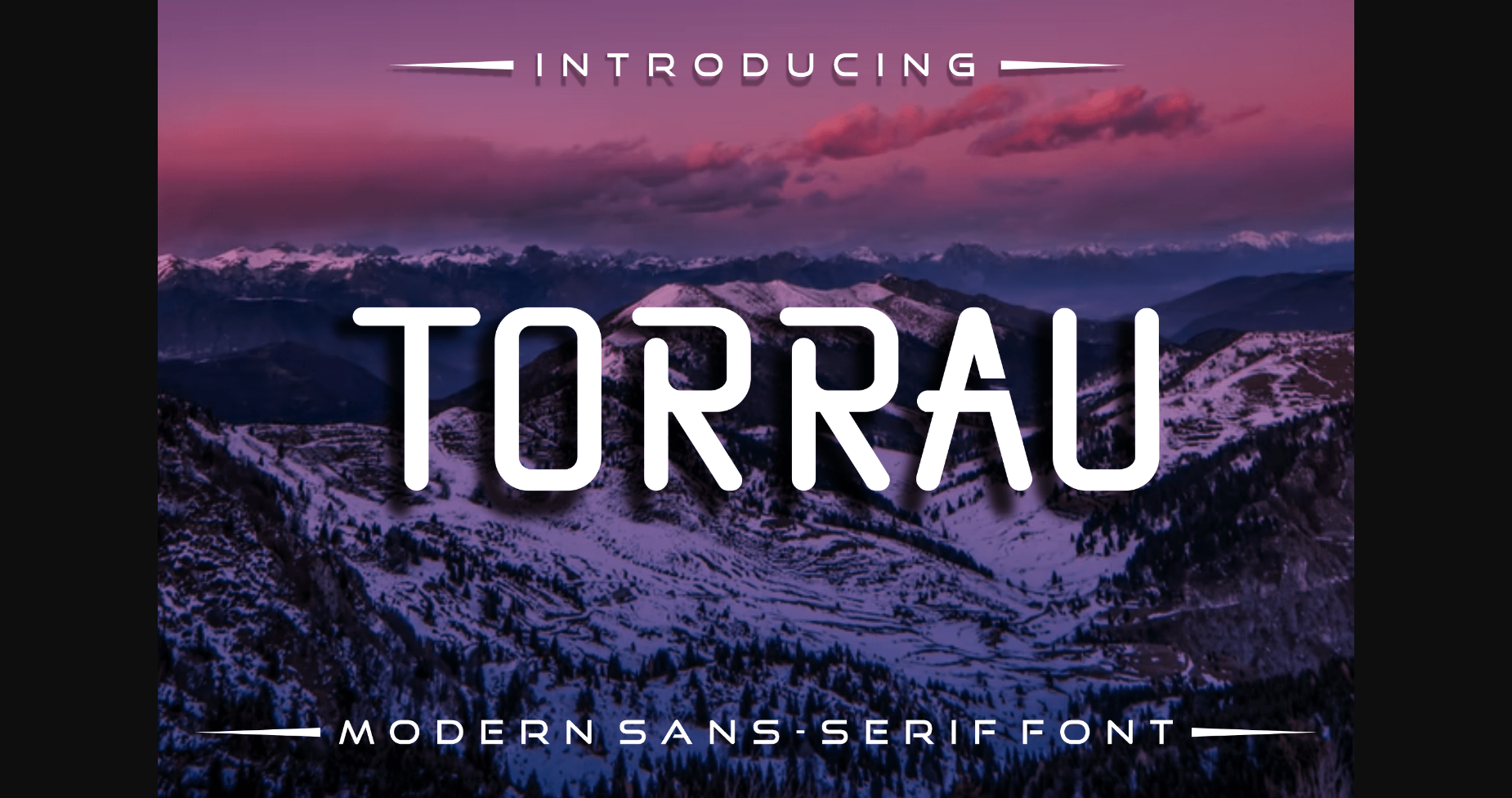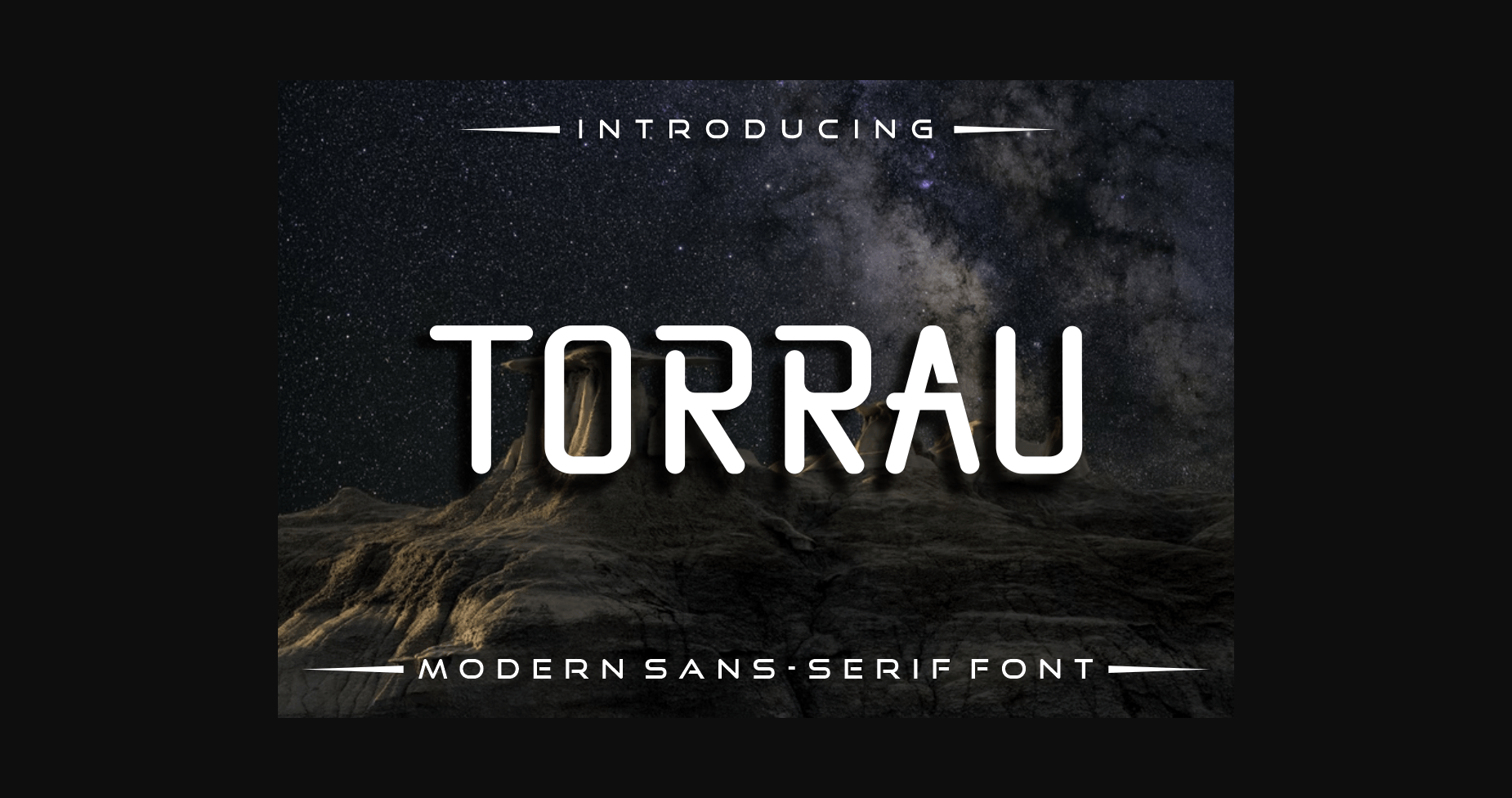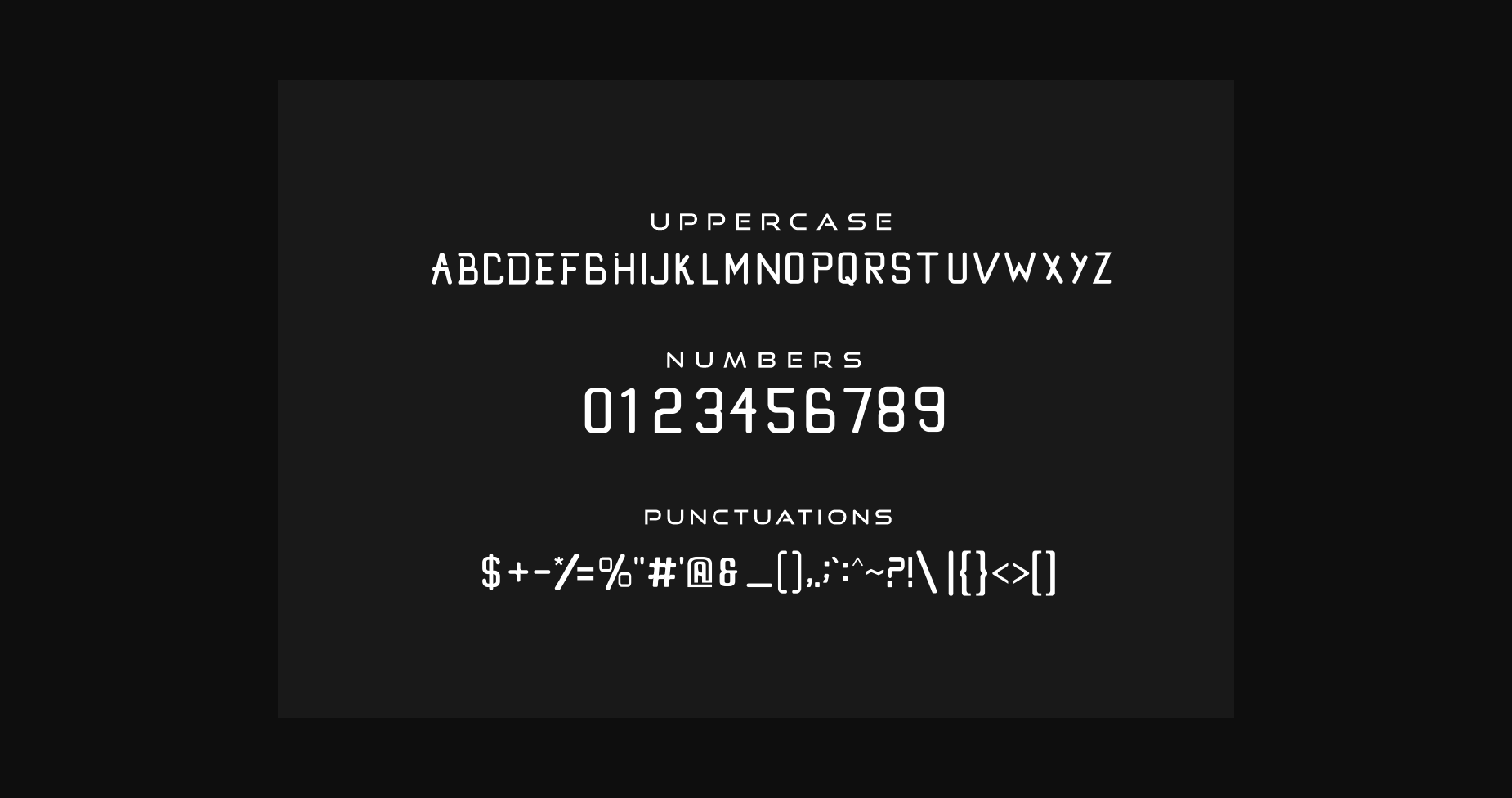
About Torrau Font
Torrau is an incredibly cool and unique sans serif font. It has a modern yet whimsical style and it will undoubtedly immerse your designs into a magical world.